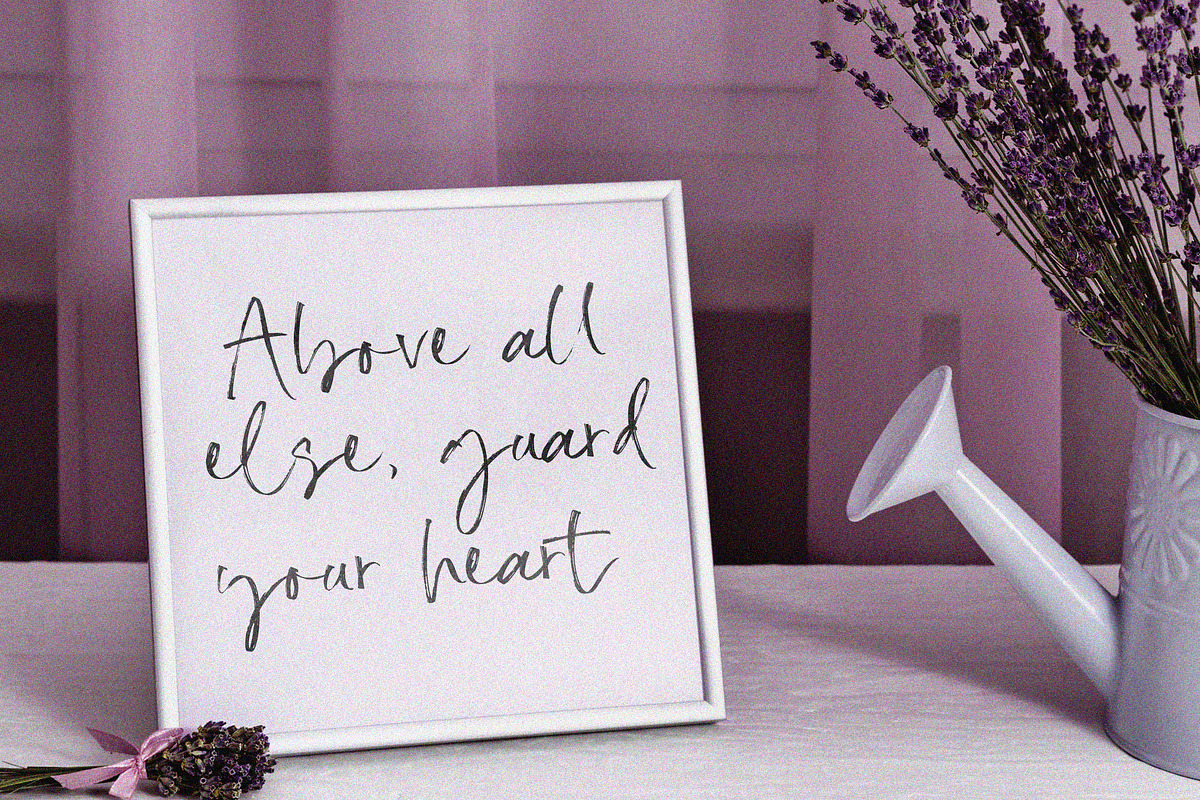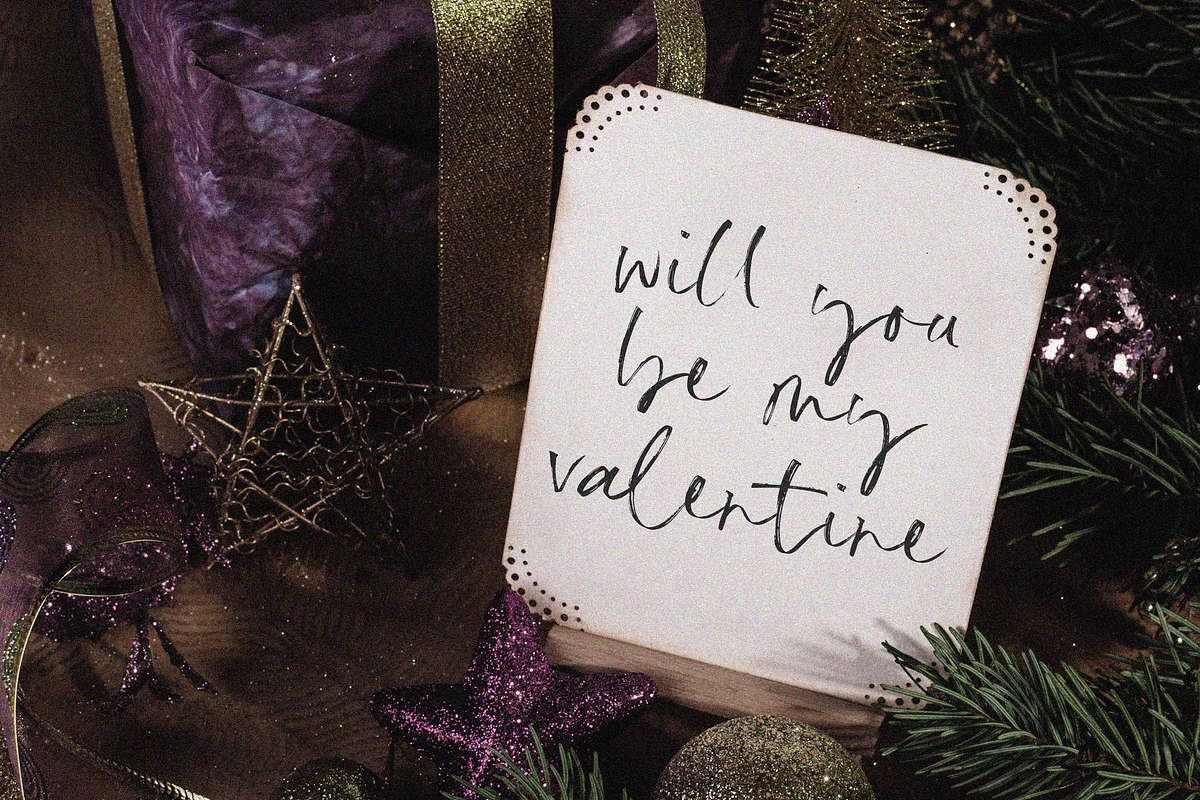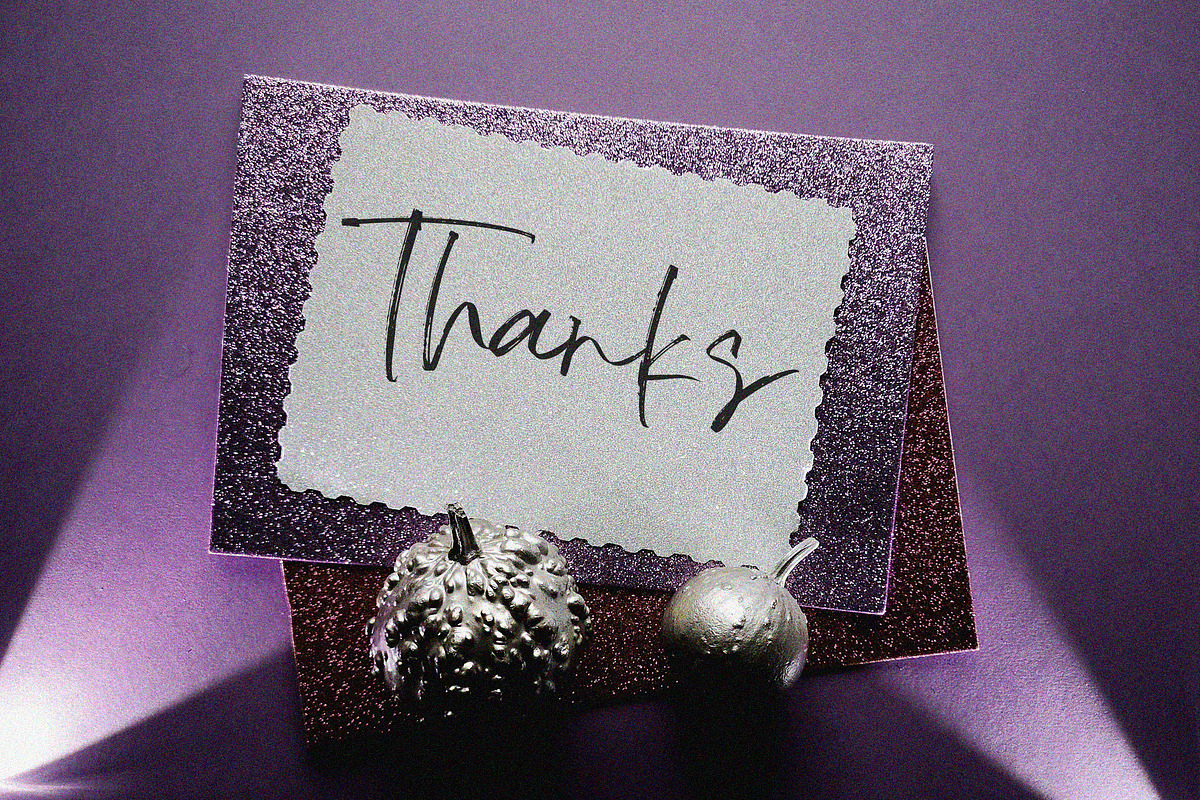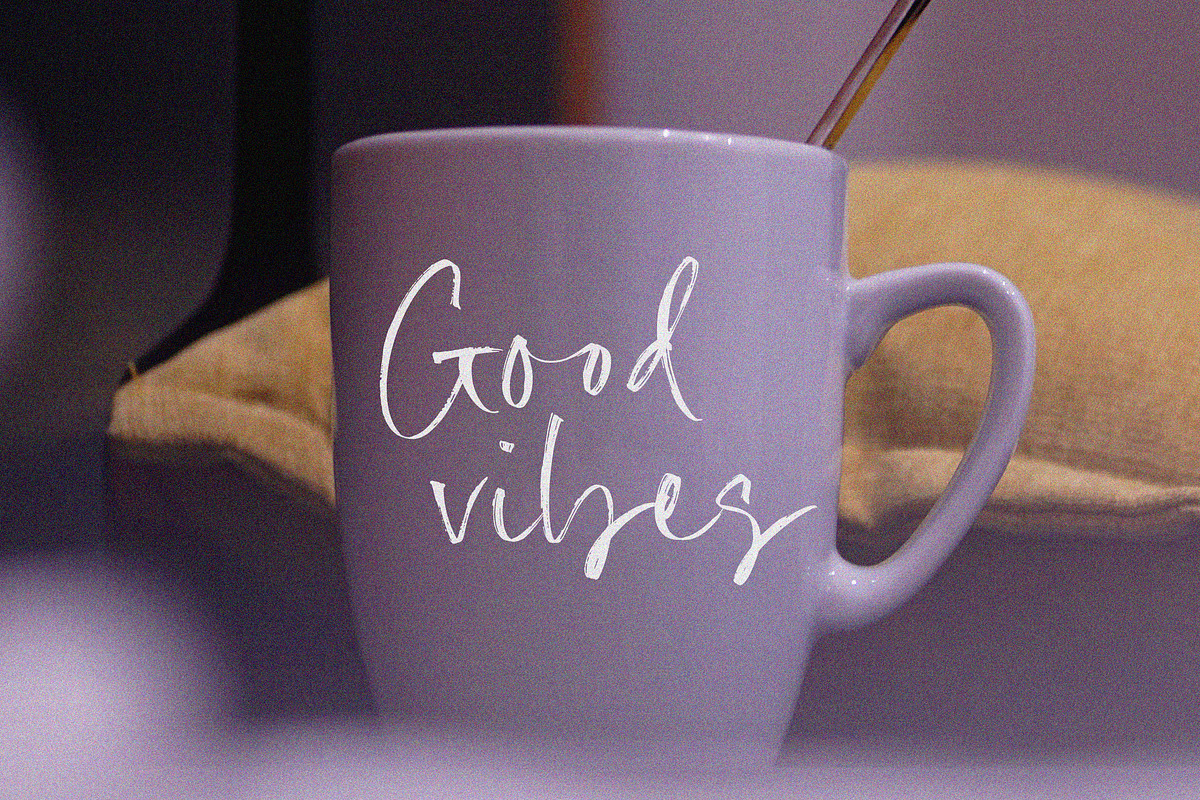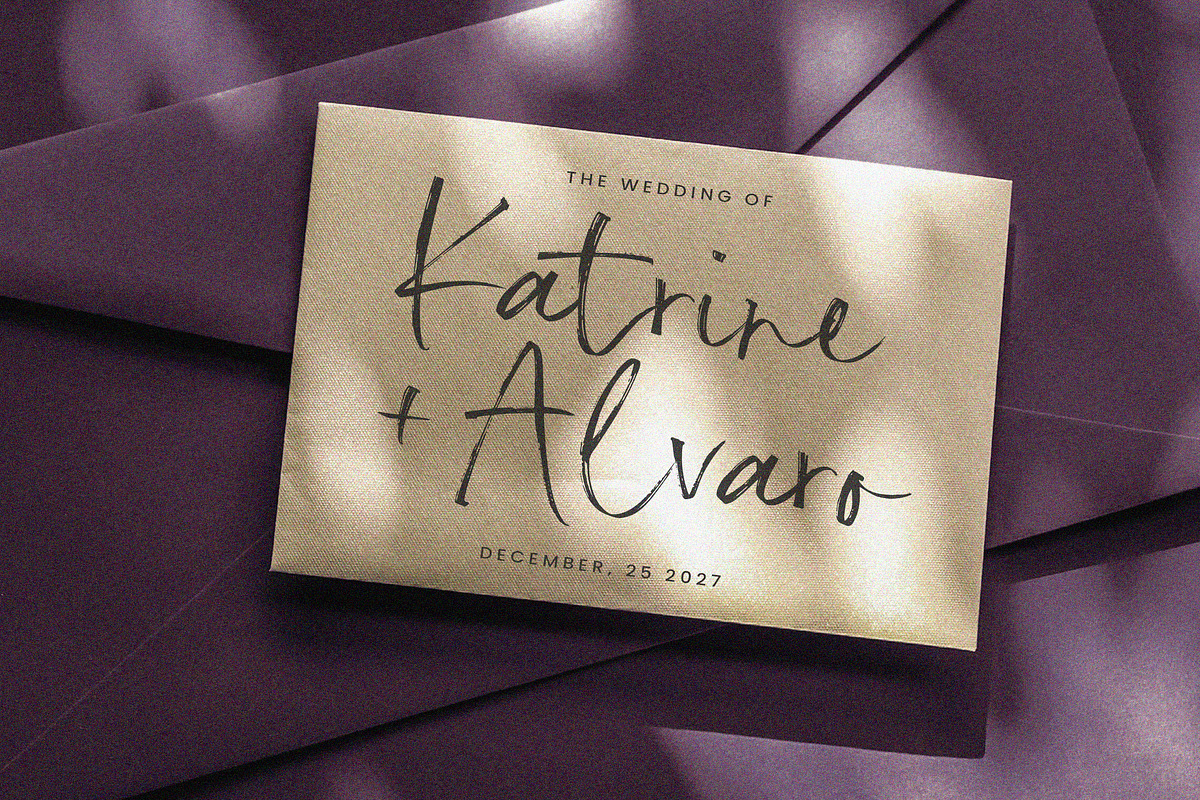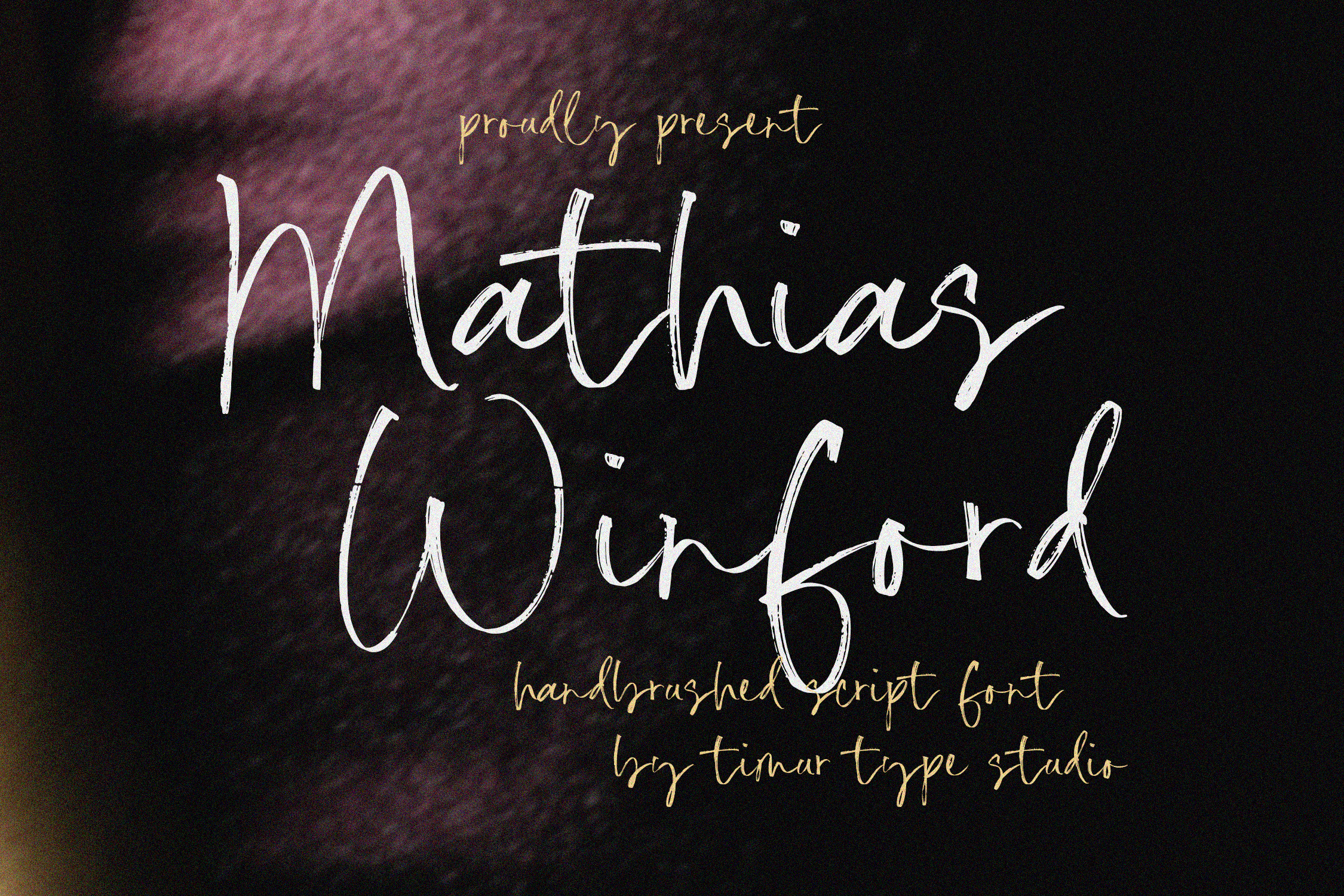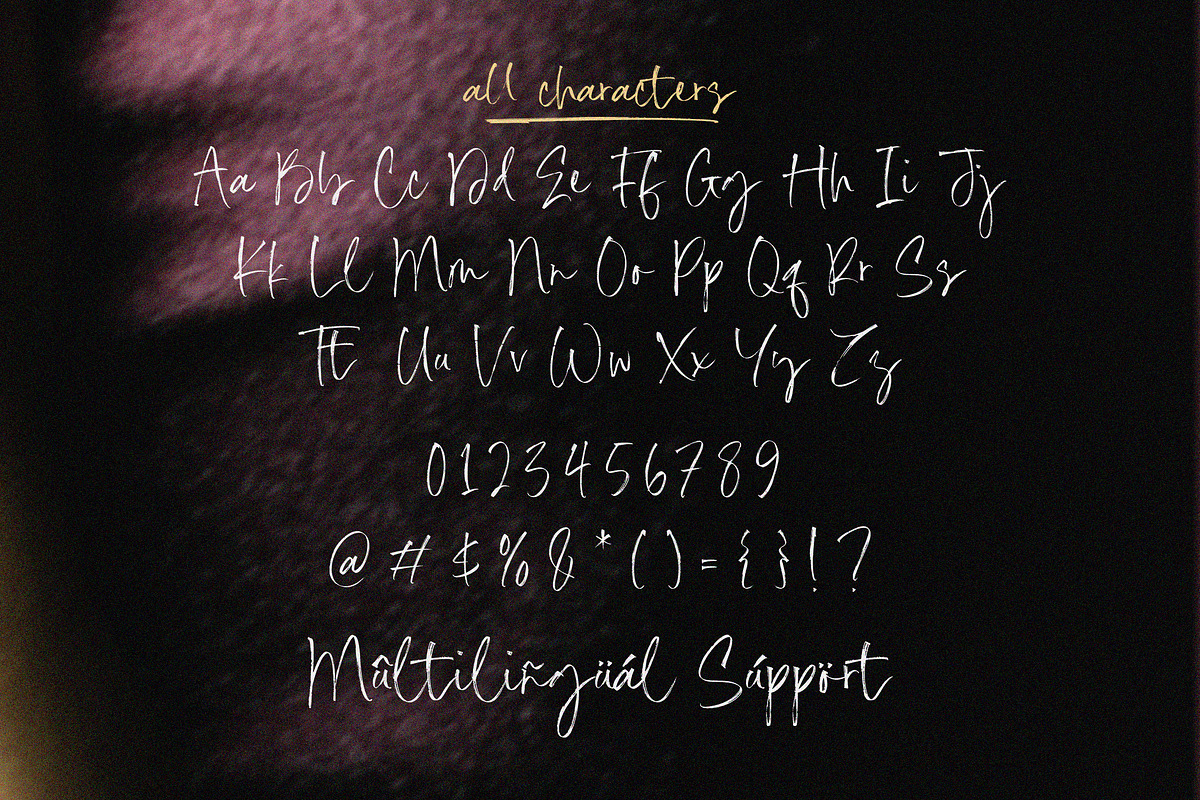
Mathias Winford Font
Introduced by Timurtype Studio!
Mathias Winford is a Handbrushed Script Font
This font is a stylish hand-brushed script font with an elegant yet bold. Featuring fluid strokes and natural ink textures, it exudes authenticity and sophistication, making it perfect for logos, branding, invitations, and artistic typography projects. Its dynamic letterforms and organic flow bring a handcrafted charm to any design.
Mathias Winford Font also supports multilingualism